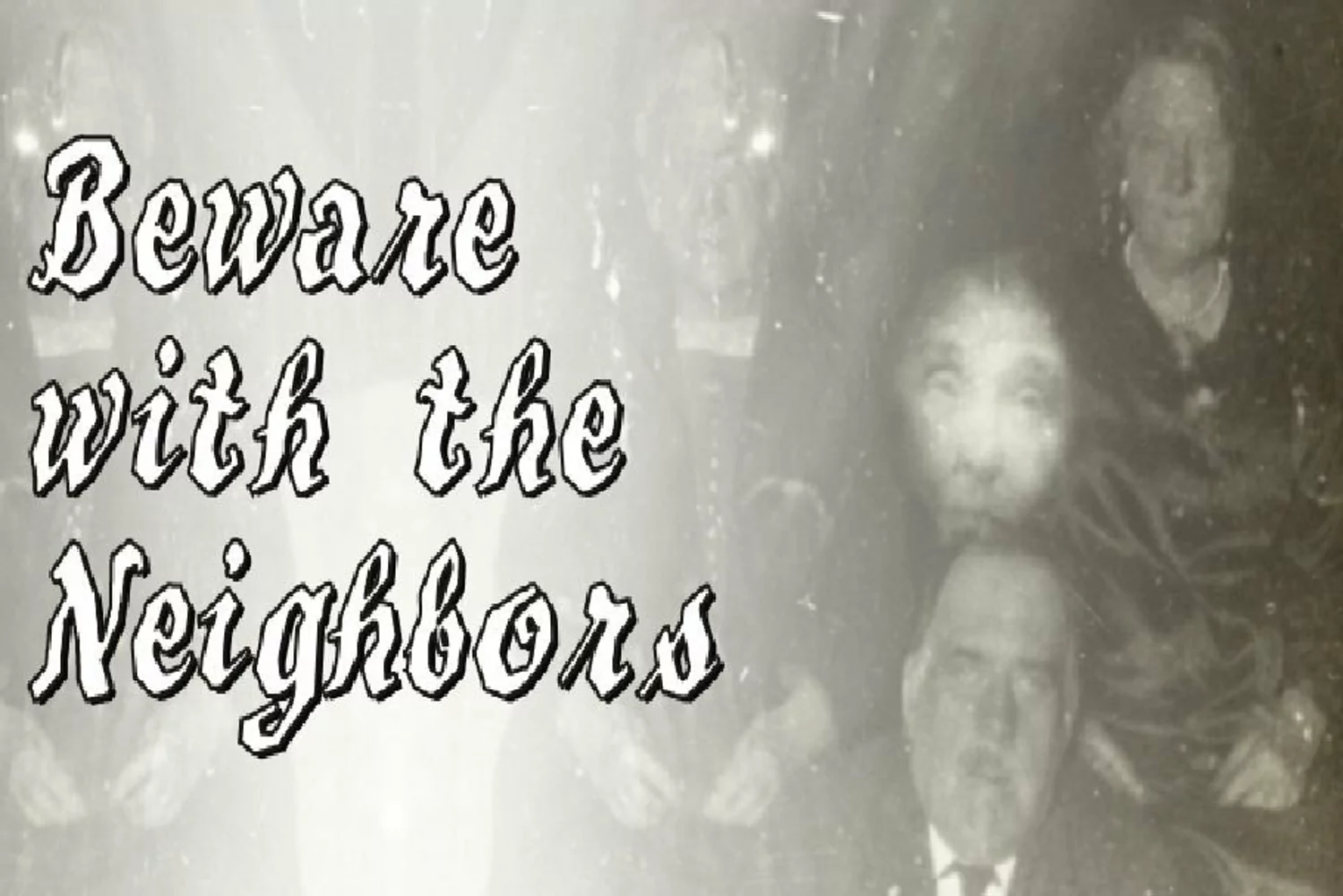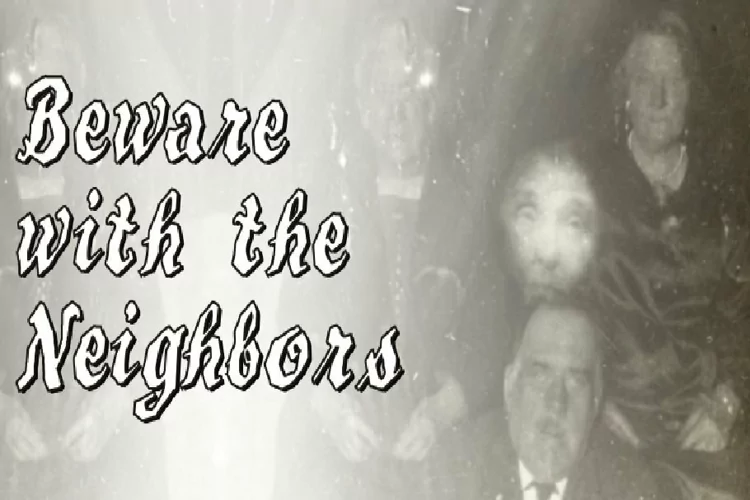
Beware The Neighboors
BewareTheNeighbors
Beware The Neighbors is based on “Personality Script”, a rough alphabet originally drawn by Ross F. George, and published in one of the Speedball series of lettering catalogs that ran from 1935 to 1948. The design is something of a minor classic, and several foundries have recreated digital fonts based on it. However, mostly of these interpretations are very “geometric”, formed using straight lines. Intellecta preferred to create a new interpretation using smoother, curved lines to create a creepy appearance. Also included are several ligatures and OpenType stylistic alternates.
Beware The Neighboors